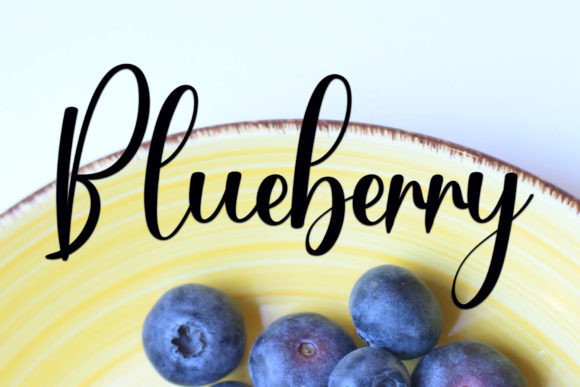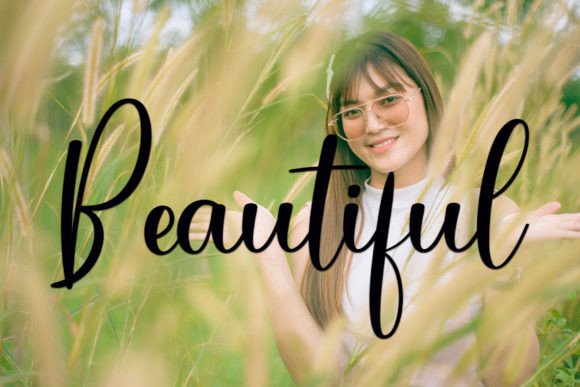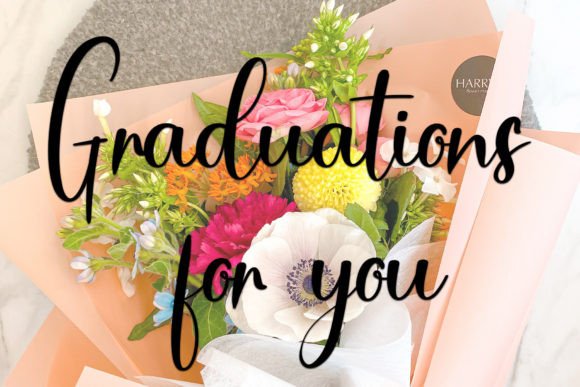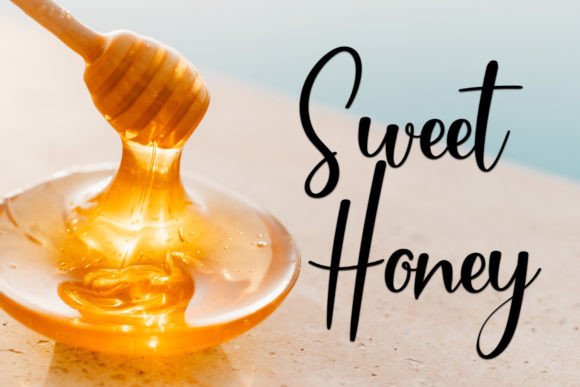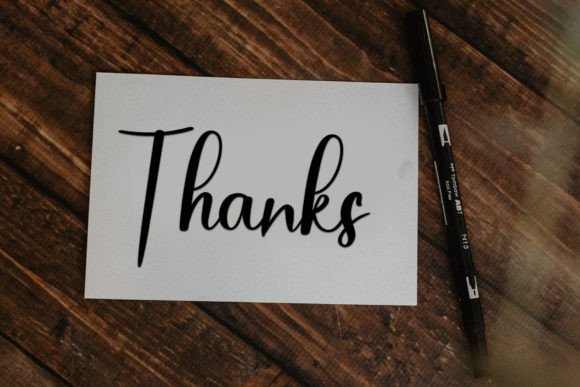
Discover the Elegance of Chabby Font: Elevate Your Designs with a Timeless Handwritten Style
Are you on the hunt for a font that adds a touch of elegance and sophistication to your designs? Look no further than Chabby Font, a stunning handwritten font that is sure to capture your heart. With its incredibly distinct and timeless style, Chabby is the perfect choice for designers and crafters looking to create spectacular designs that stand out from the crowd.
What Makes Chabby Font So Special?
Chabby Font is a neat and beautiful handwritten font that boasts an elegant touch, making it ideal for a wide range of projects. Whether you’re working on a logo, branding materials, social media graphics, or even a website, Chabby is sure to bring a level of sophistication and refinement to your designs. Its unique and distinctive style is sure to leave a lasting impression on your audience, setting your designs apart from the rest.
The Characteristics of Chabby Font
So, what makes Chabby Font so unique? Here are just a few of its key characteristics:
- Elegant and Refined: Chabby Font features an elegant and refined style that is perfect for designs that require a touch of sophistication.
- Handwritten with Love: Chabby is a handwritten font, which gives it a personal and unique touch that’s hard to replicate with generic fonts.
- Distinct and Timeless: Chabby’s style is incredibly distinct and timeless, making it a great choice for designers who want to create designs that won’t date quickly.
- Versatile: Chabby Font is versatile and can be used for a wide range of projects, from logos and branding materials to social media graphics and websites.
How to Use Chabby Font in Your Designs
Using Chabby Font in your designs is easy. Here are a few tips to get you started:
- Pair it with Other Fonts: Chabby Font pairs well with other fonts, so don’t be afraid to experiment with different combinations to find the perfect look for your design.
- Use it for Headings and Titles: Chabby Font is perfect for headings and titles, where its elegant and refined style can really shine.
- Add it to Your Brand Identity: If you’re looking to create a consistent brand identity, consider using Chabby Font across all of your marketing materials.
Why Designers and Crafters Love Chabby Font
Designers and crafters love Chabby Font for a variety of reasons. Here are just a few:
- Unique Style: Chabby Font offers a unique and distinctive style that sets it apart from other fonts.
- Ease of Use: Chabby Font is easy to use and can be easily integrated into a wide range of design projects.
- High-Quality: Chabby Font is a high-quality font that is designed to deliver exceptional results.
If you’re looking for a font that adds a touch of elegance and sophistication to your designs, look no further than Chabby Font. With its incredibly distinct and timeless style, Chabby is the perfect choice for designers and crafters who want to create spectacular designs that stand out from the crowd. So why wait? Fall in love with Chabby Font today and take your designs to the next level!
- Chabby Font is a neat and beautiful handwritten font with an elegant touch.
- It’s perfect for a wide range of projects, from logos and branding materials to social media graphics and websites.
- Chabby Font is easy to use and can be easily integrated into a wide range of design projects.
- Its unique and distinctive style is sure to leave a lasting impression on your audience.